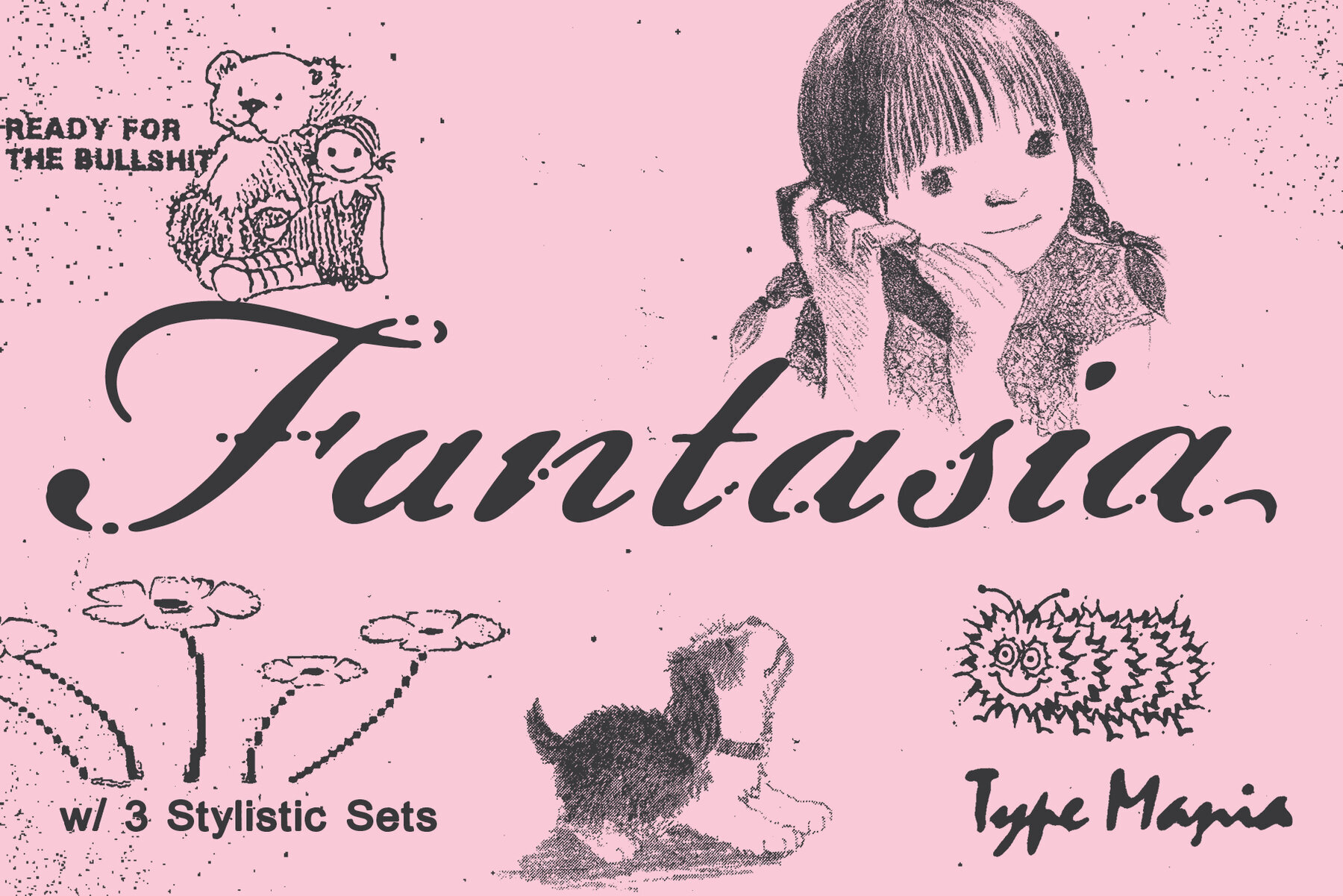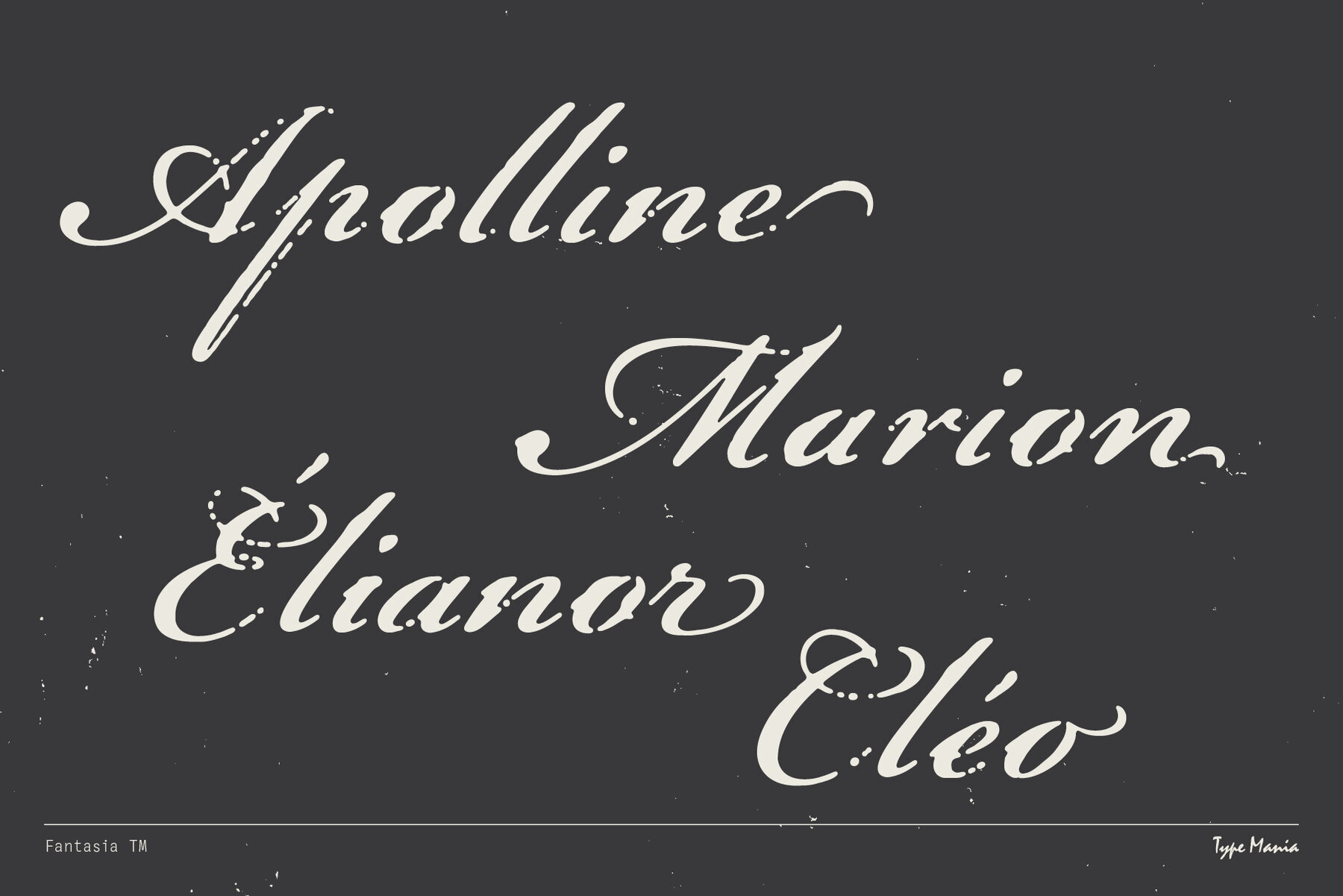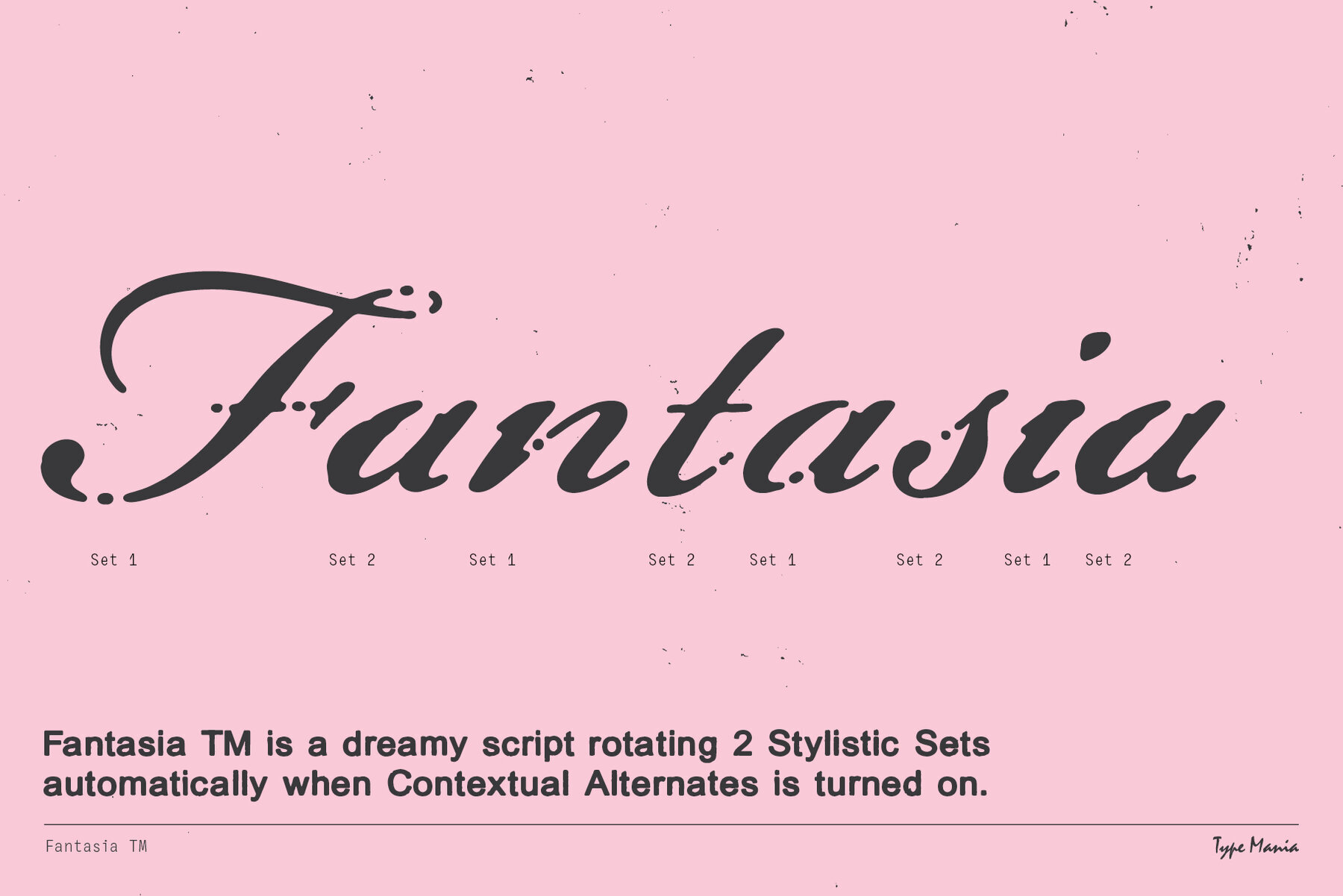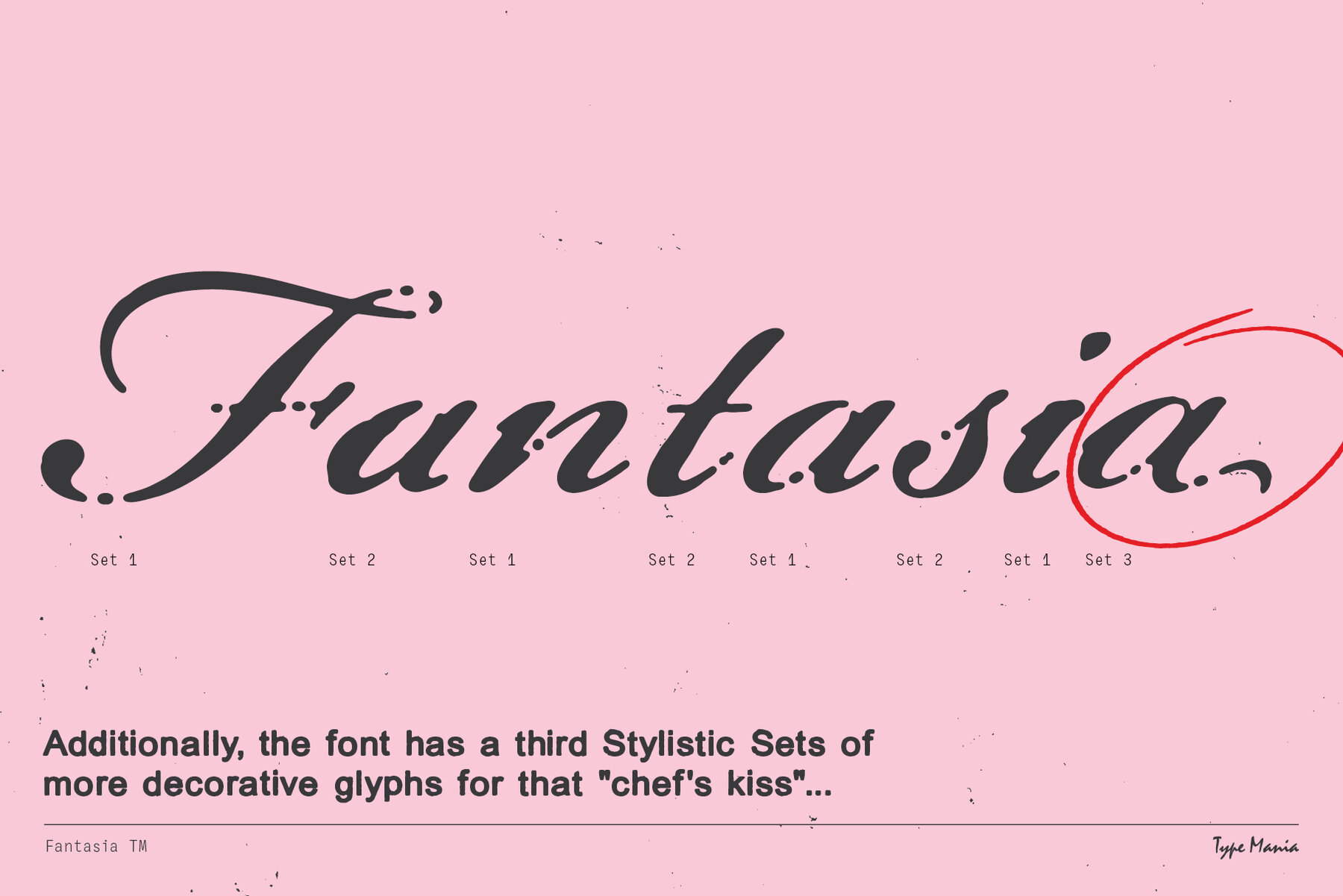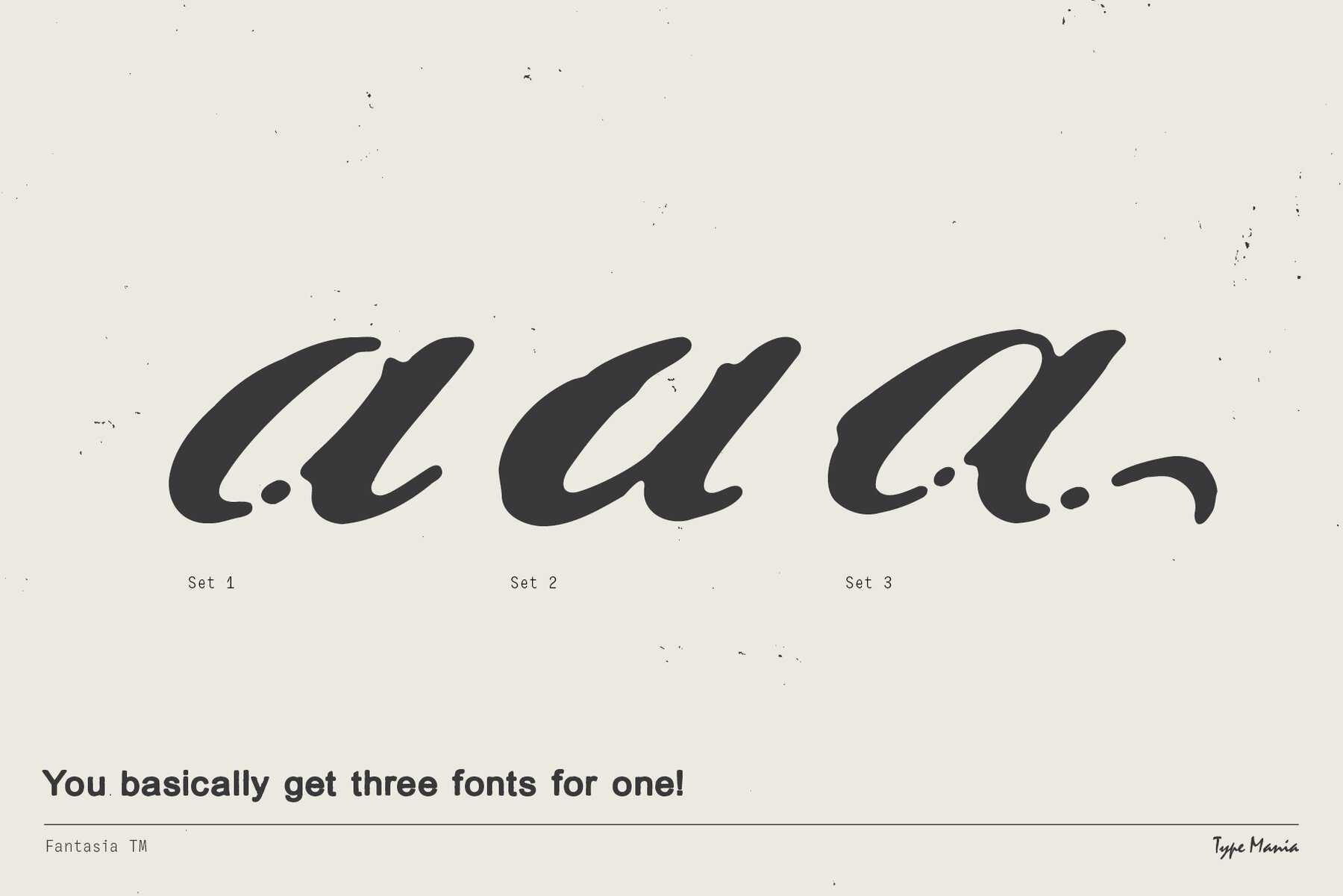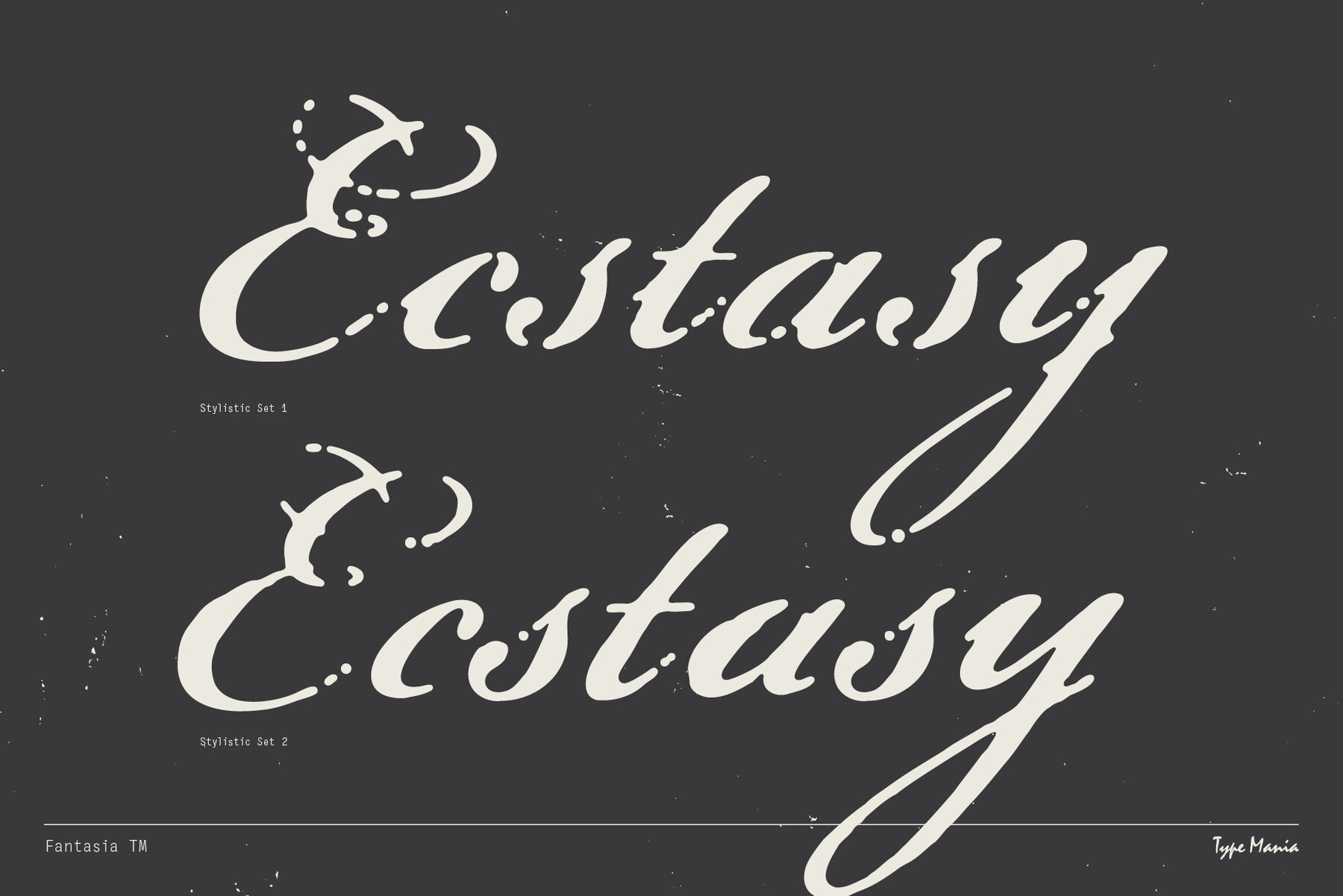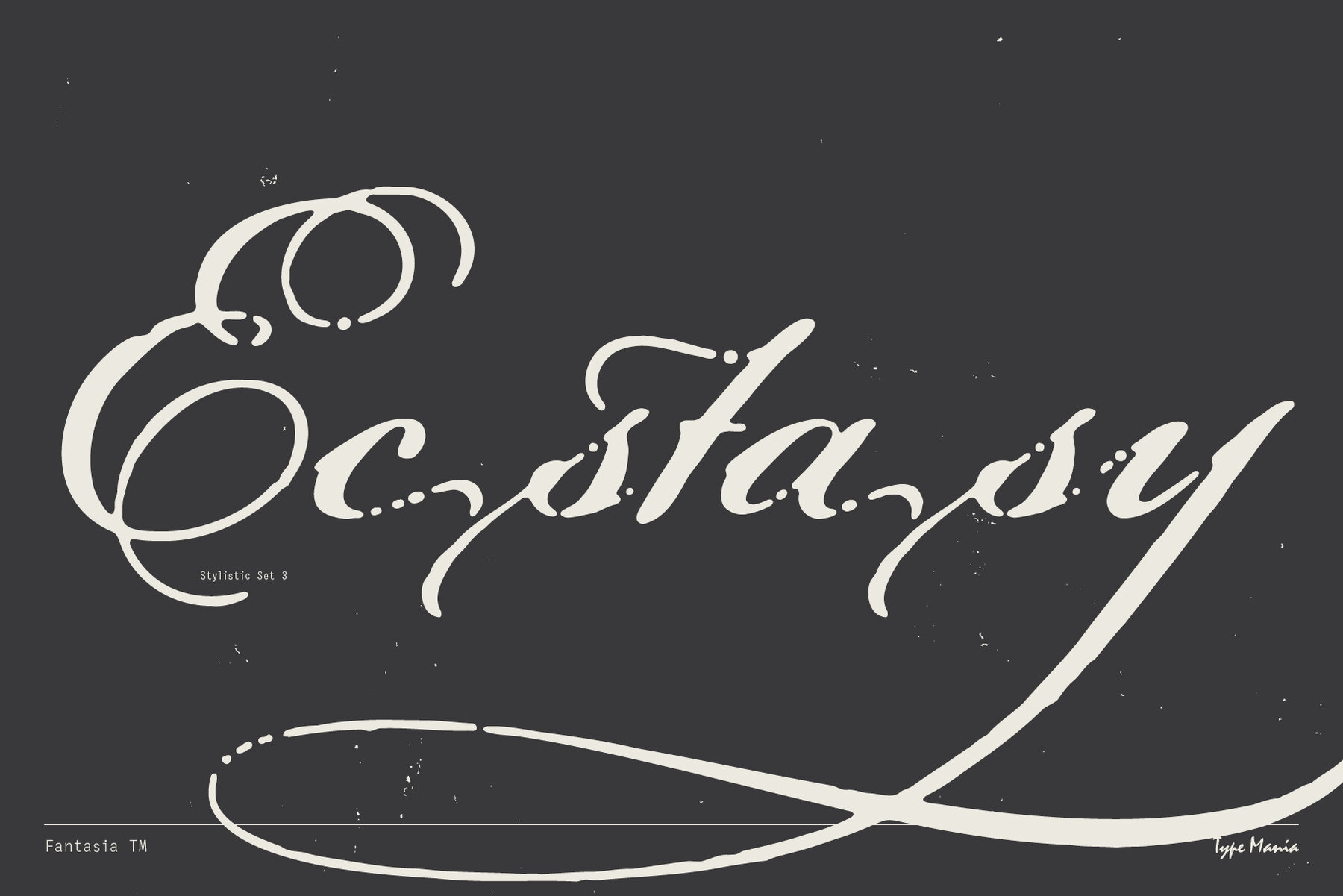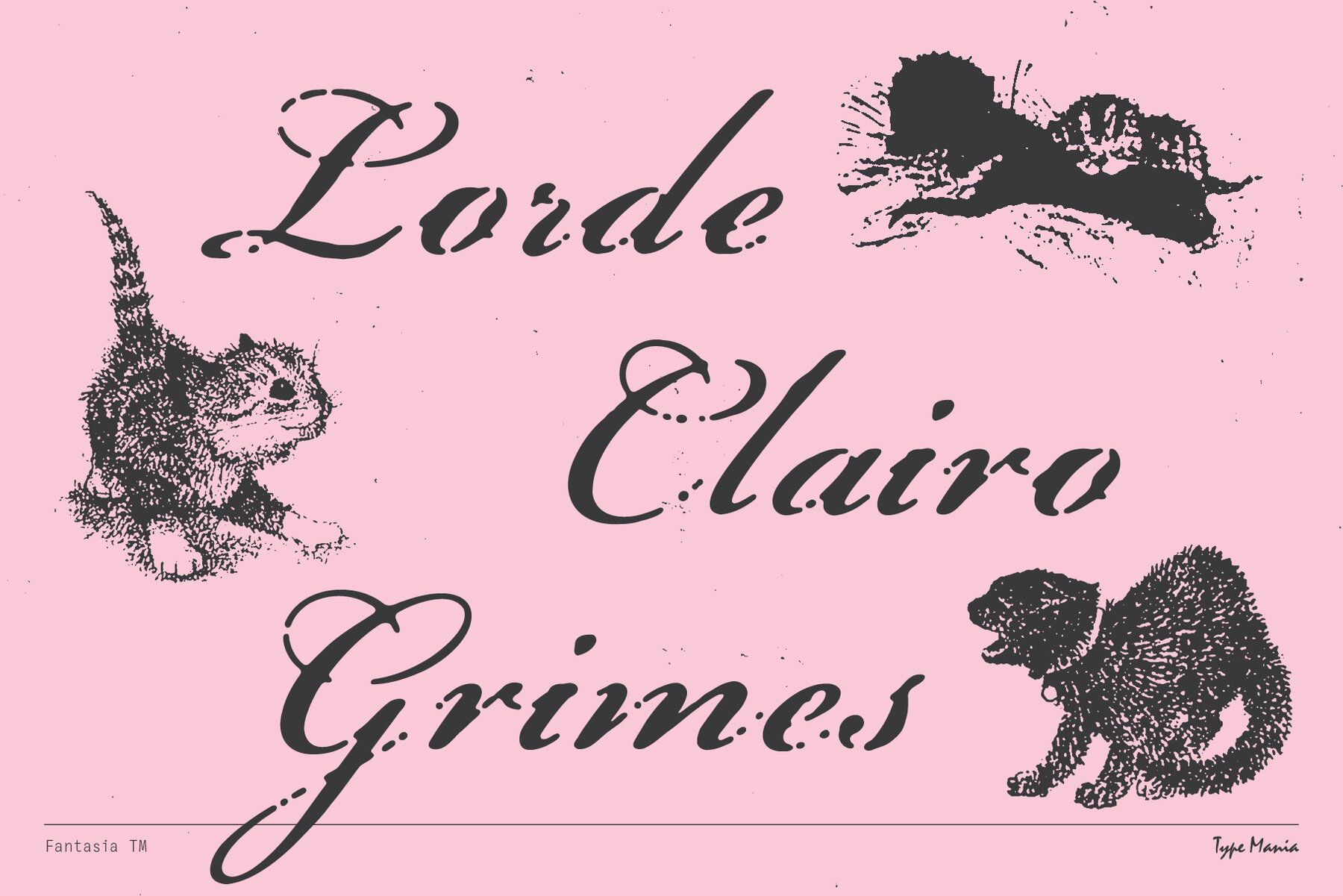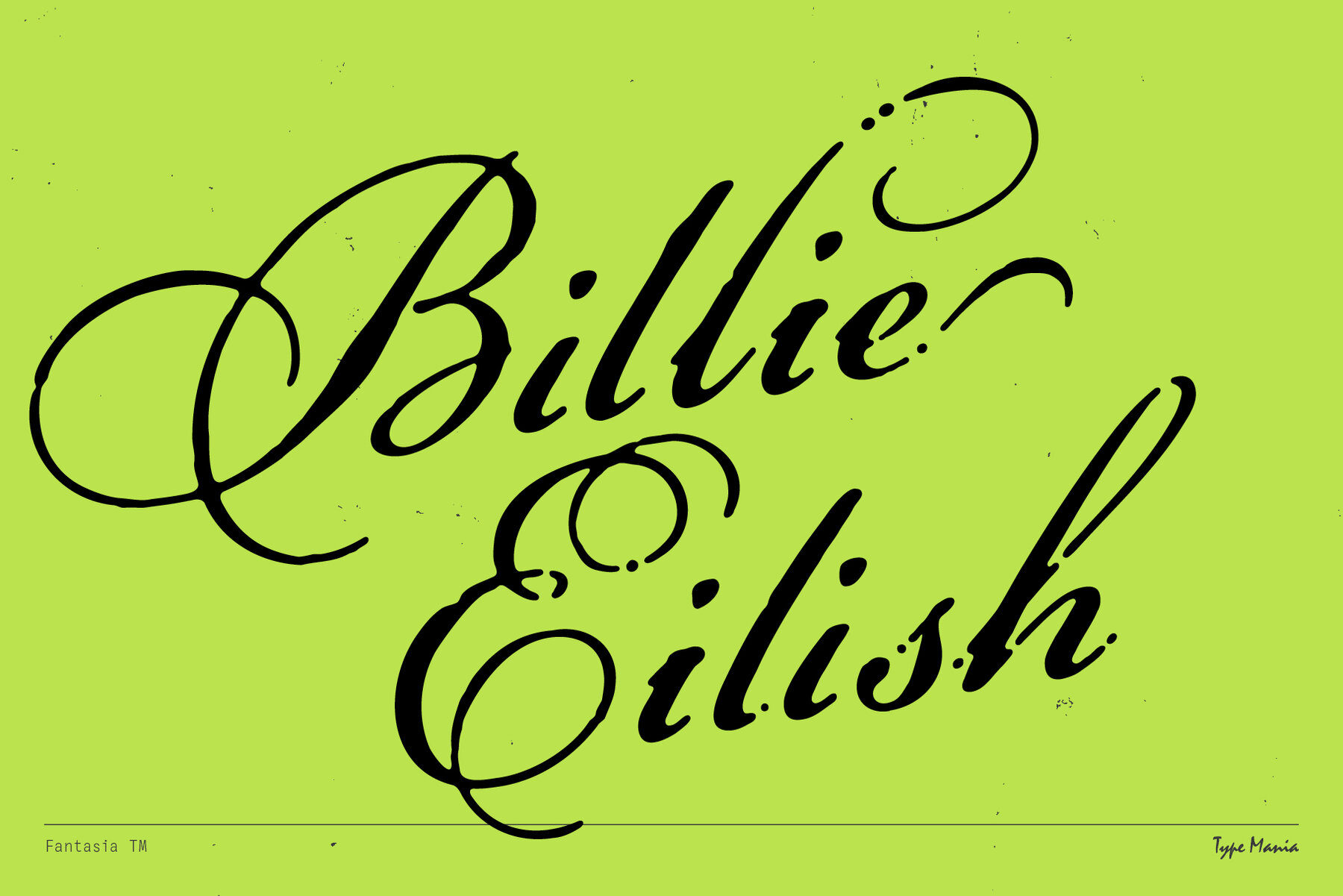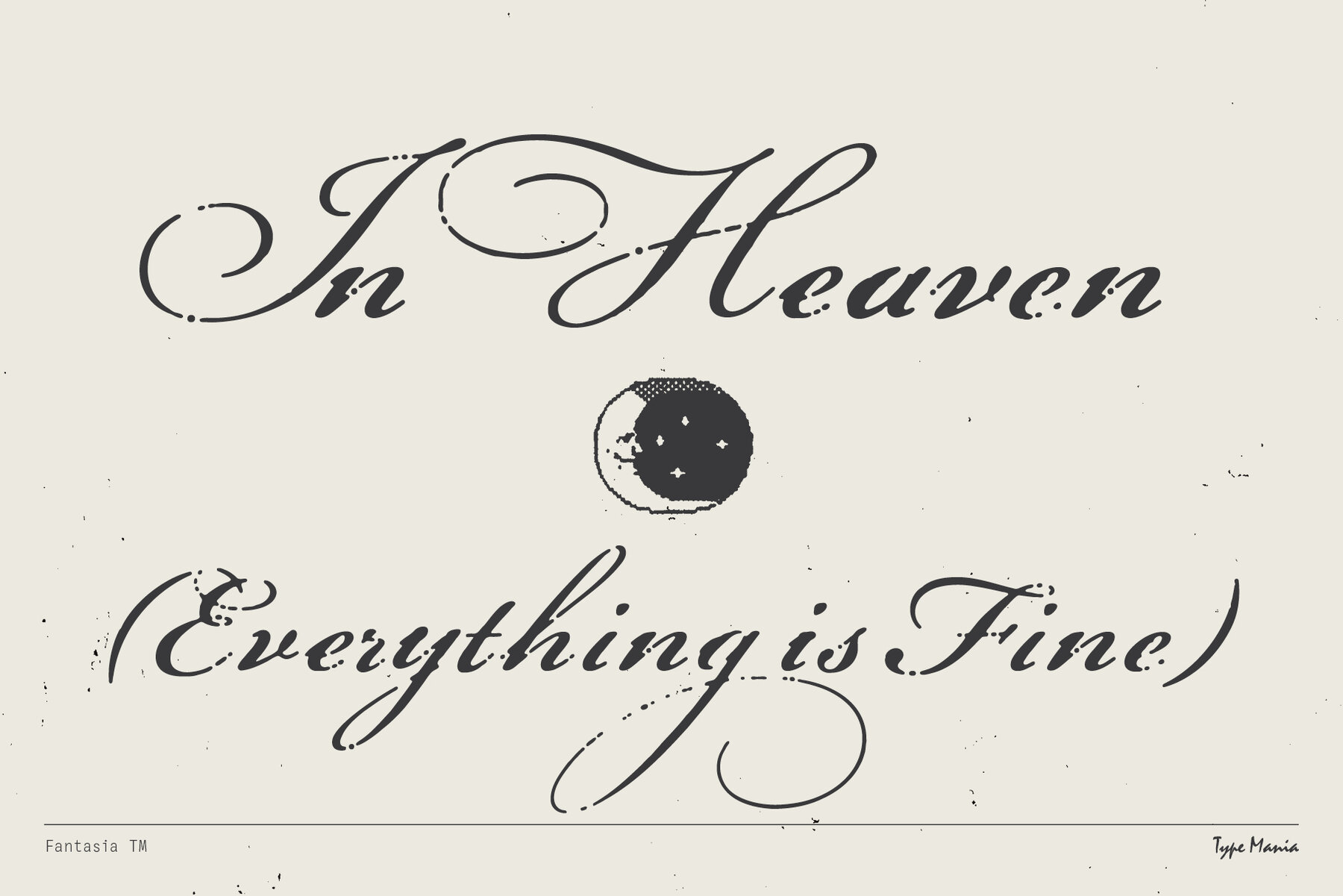
Fantasia TM Font
Fantasia TM is a script font treading the tightrope between edge and elegance. Its curves feature a worn texture, and the rotating stylistic sets guarantee an organic look & feel. Ideal for designs that need character without polish ‧₊˚ ️⋅???? ࣪ ִֶָ. OpenType features Languages Graphic Design is Easy (with Type Mania)®